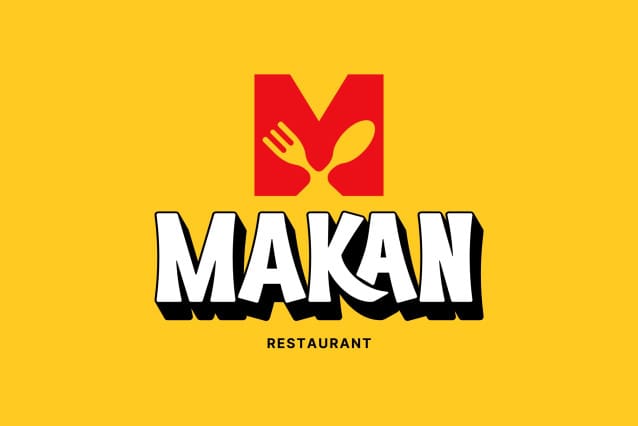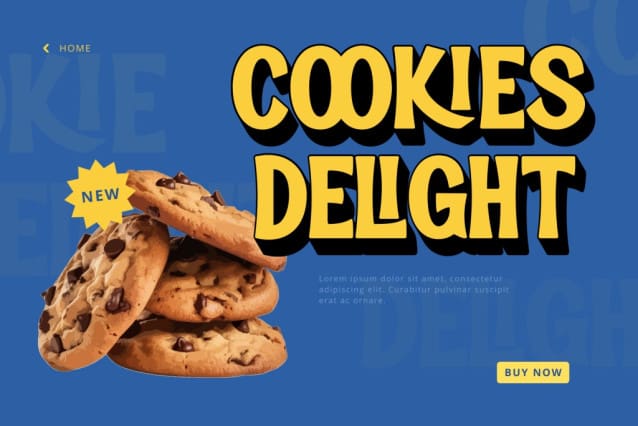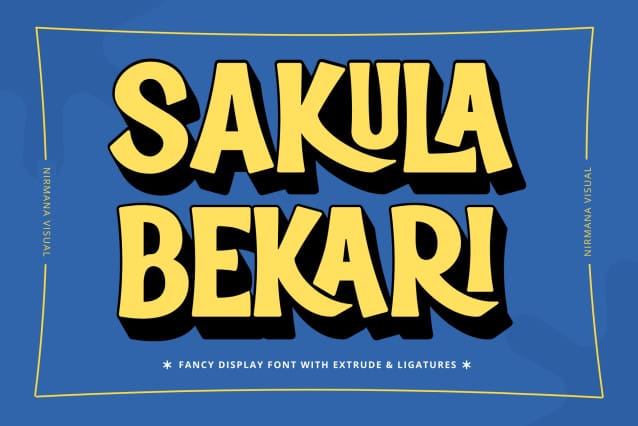
Sakula Bekari Font
Sakula Bekari Retro, a bold and stylish display font with a retro flair. Perfect for vintage-themed designs, this typeface captures the charm of classic signage and old-school typography. It comes in two styles: Regular for a clean, nostalgic look and Extrude for a striking 3D effect. Ideal for posters, branding, packaging, and more, Sakula Bekari Retro brings a timeless, eye-catching appeal to any project. Elevate your designs with its bold curves and retro personality!